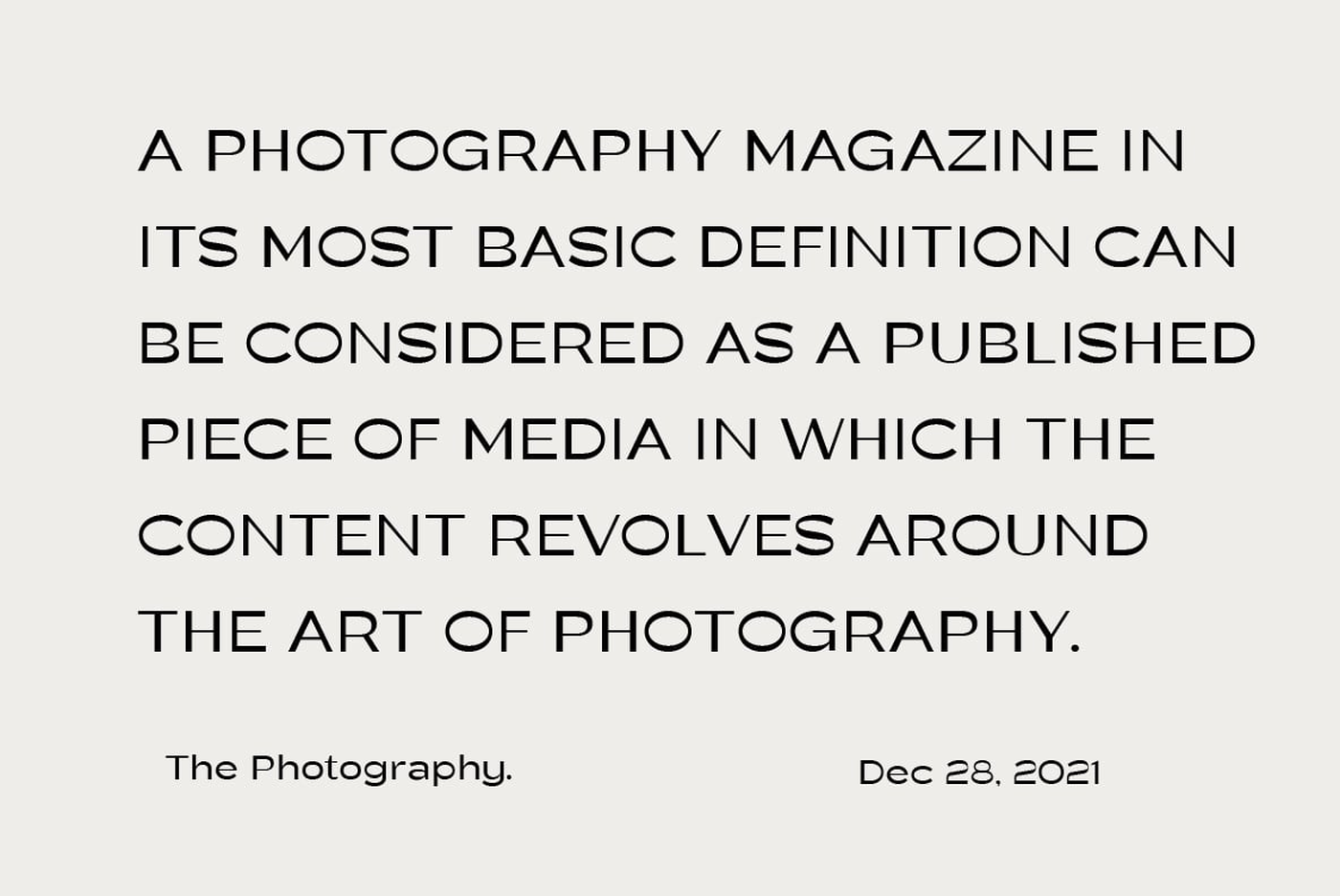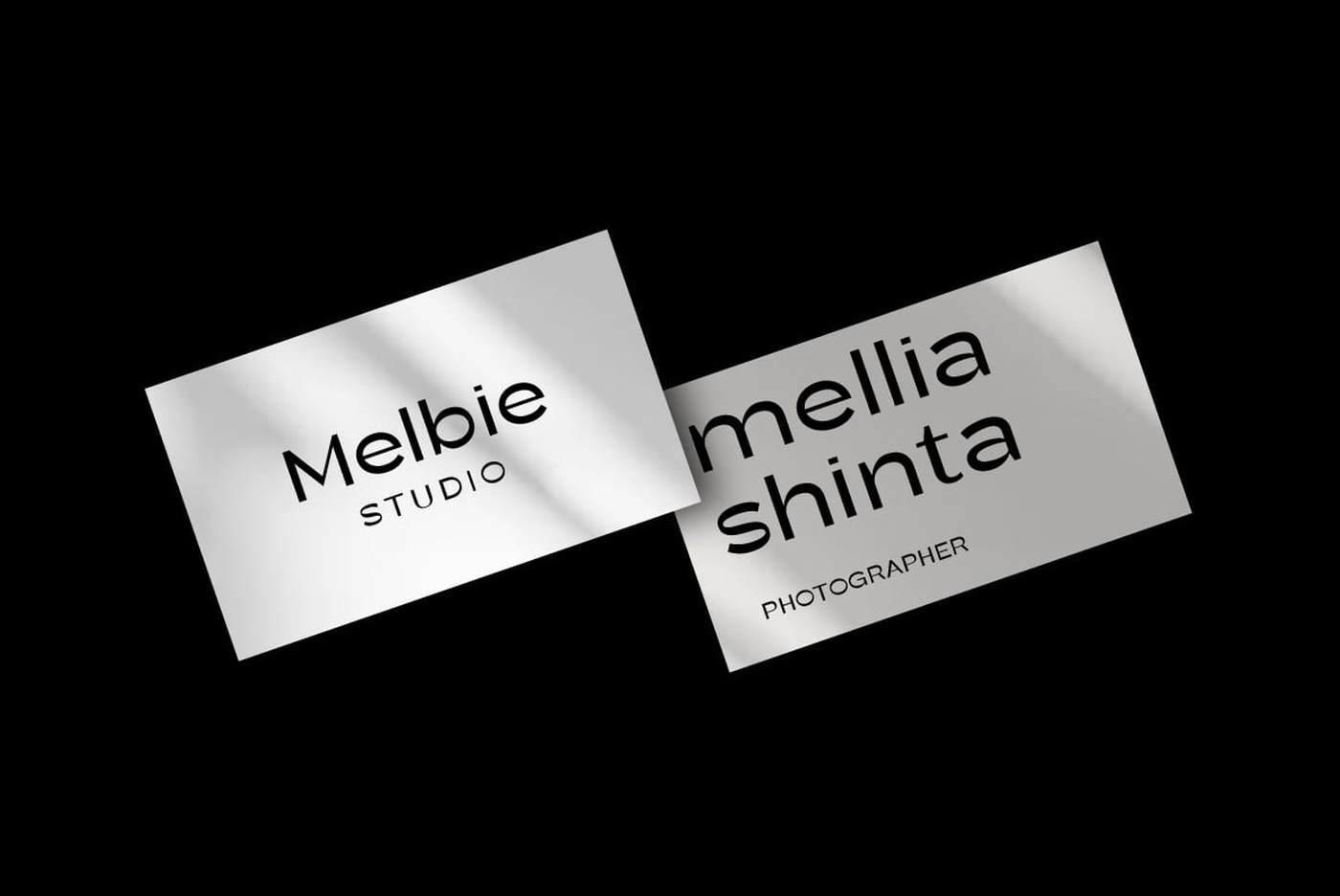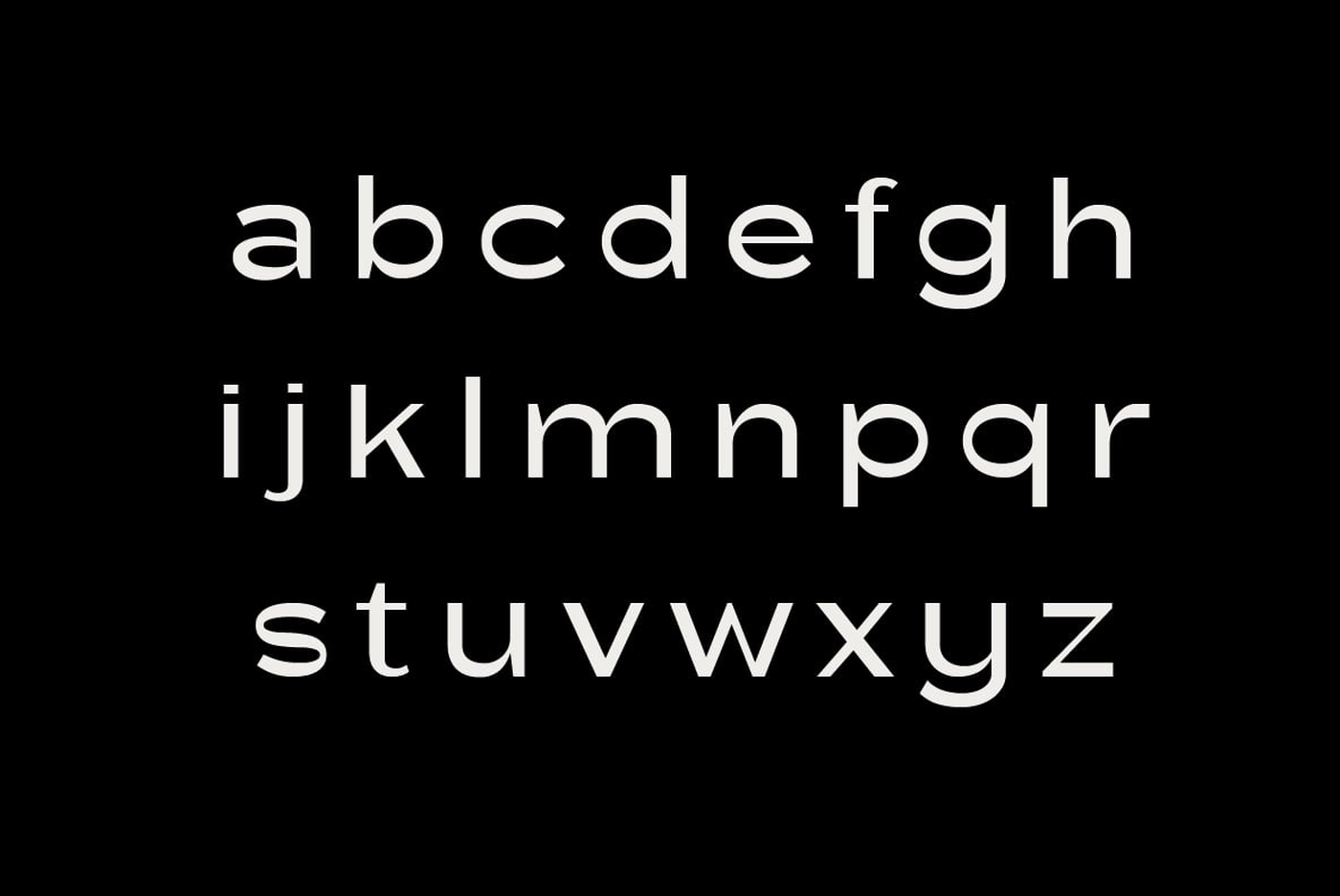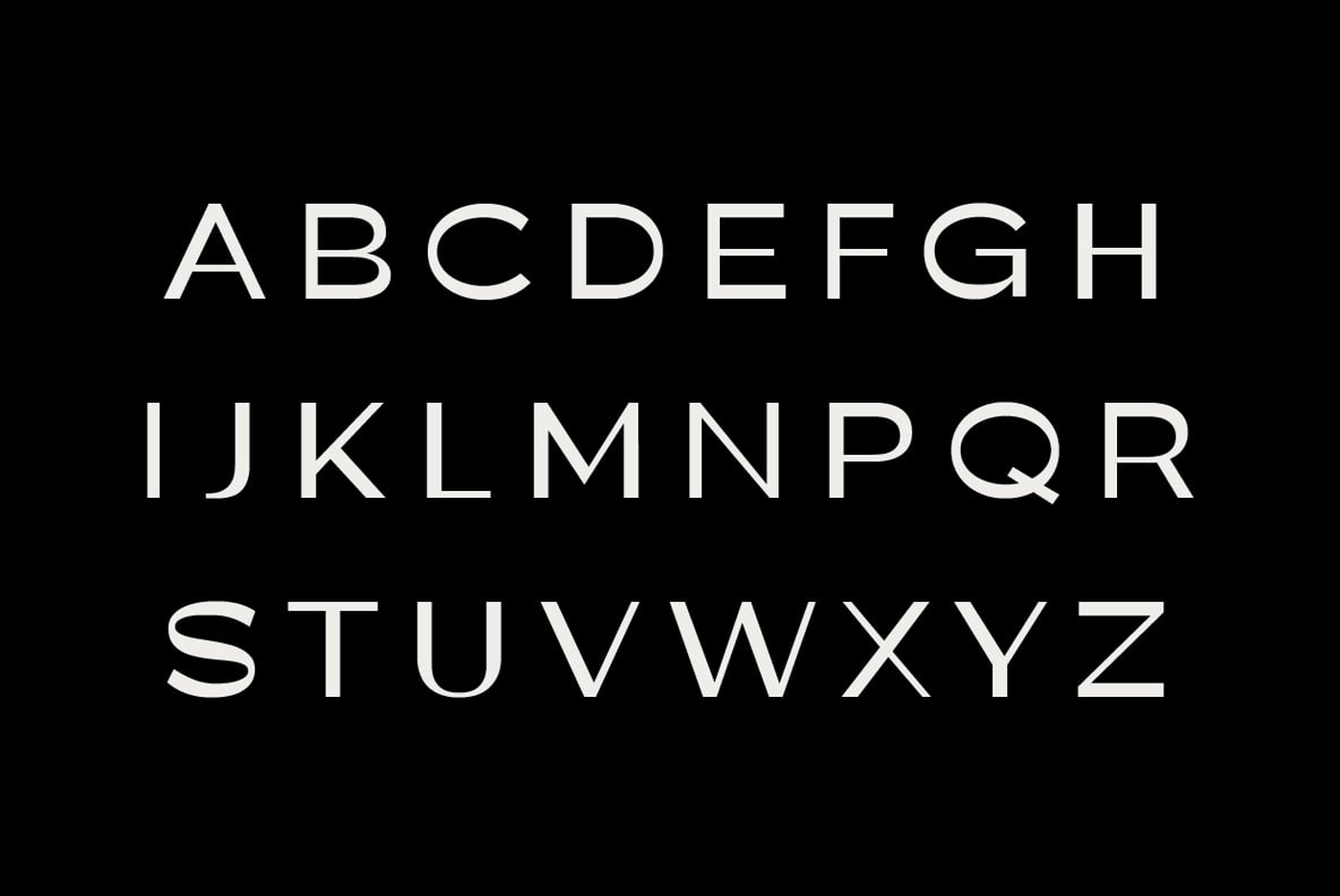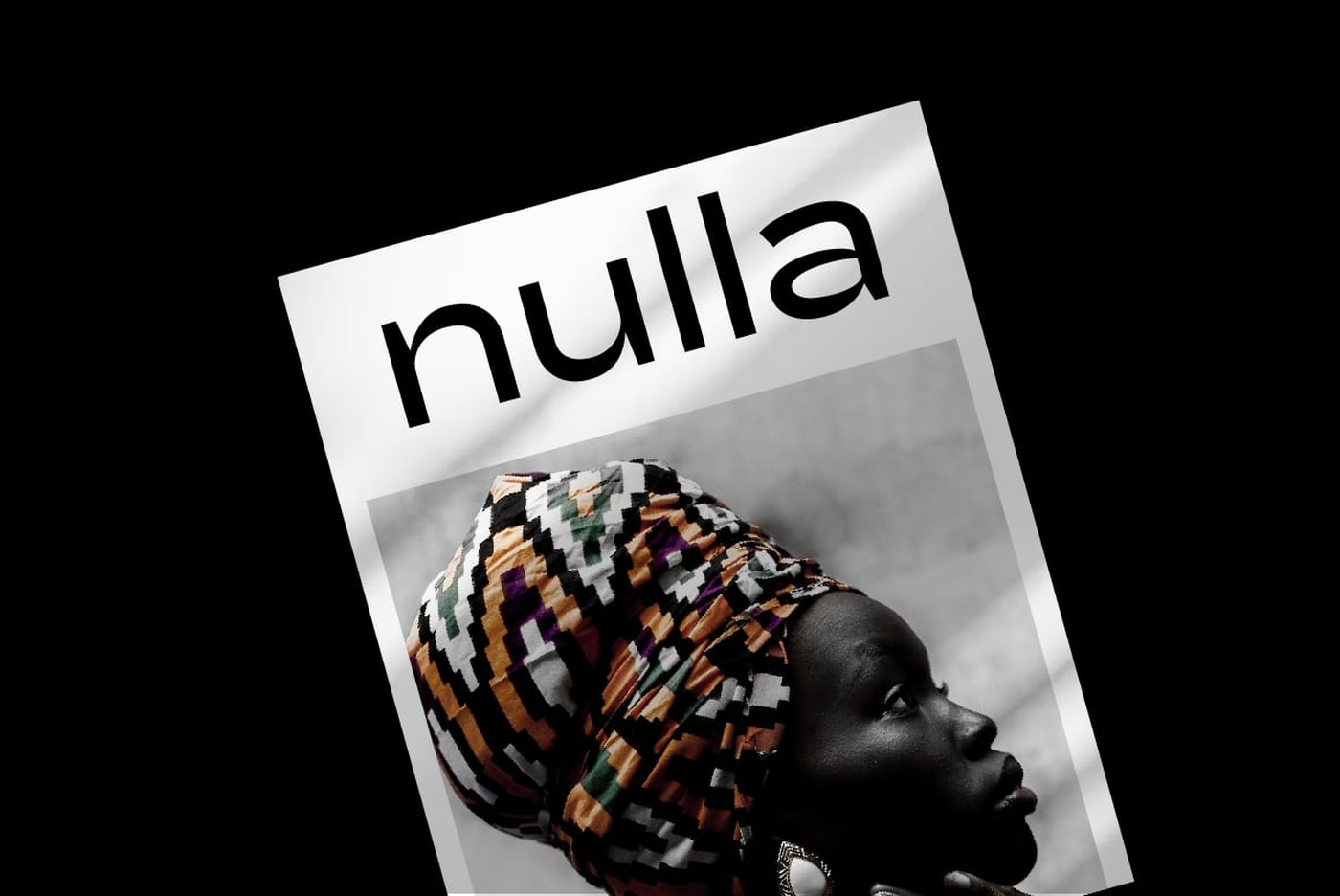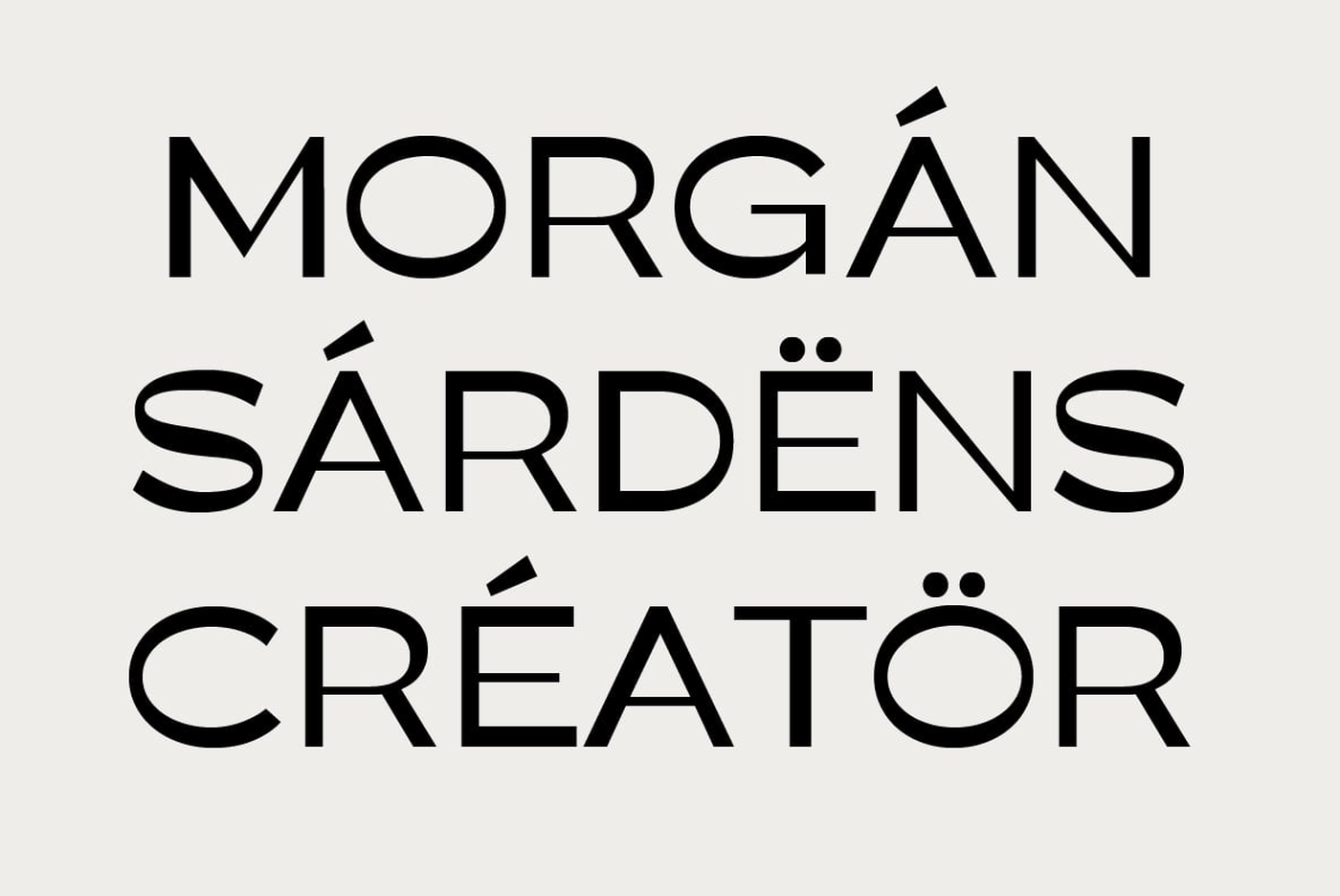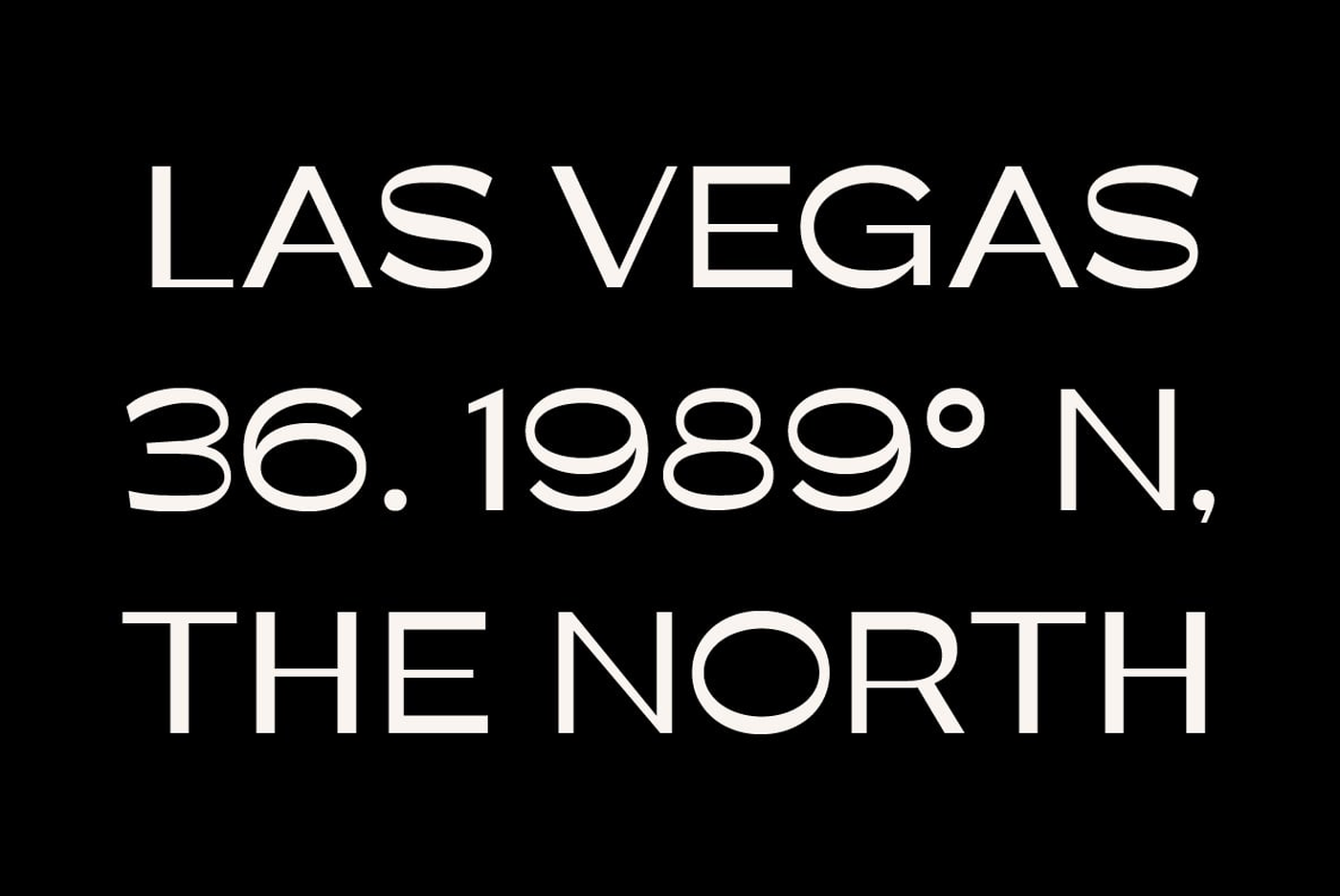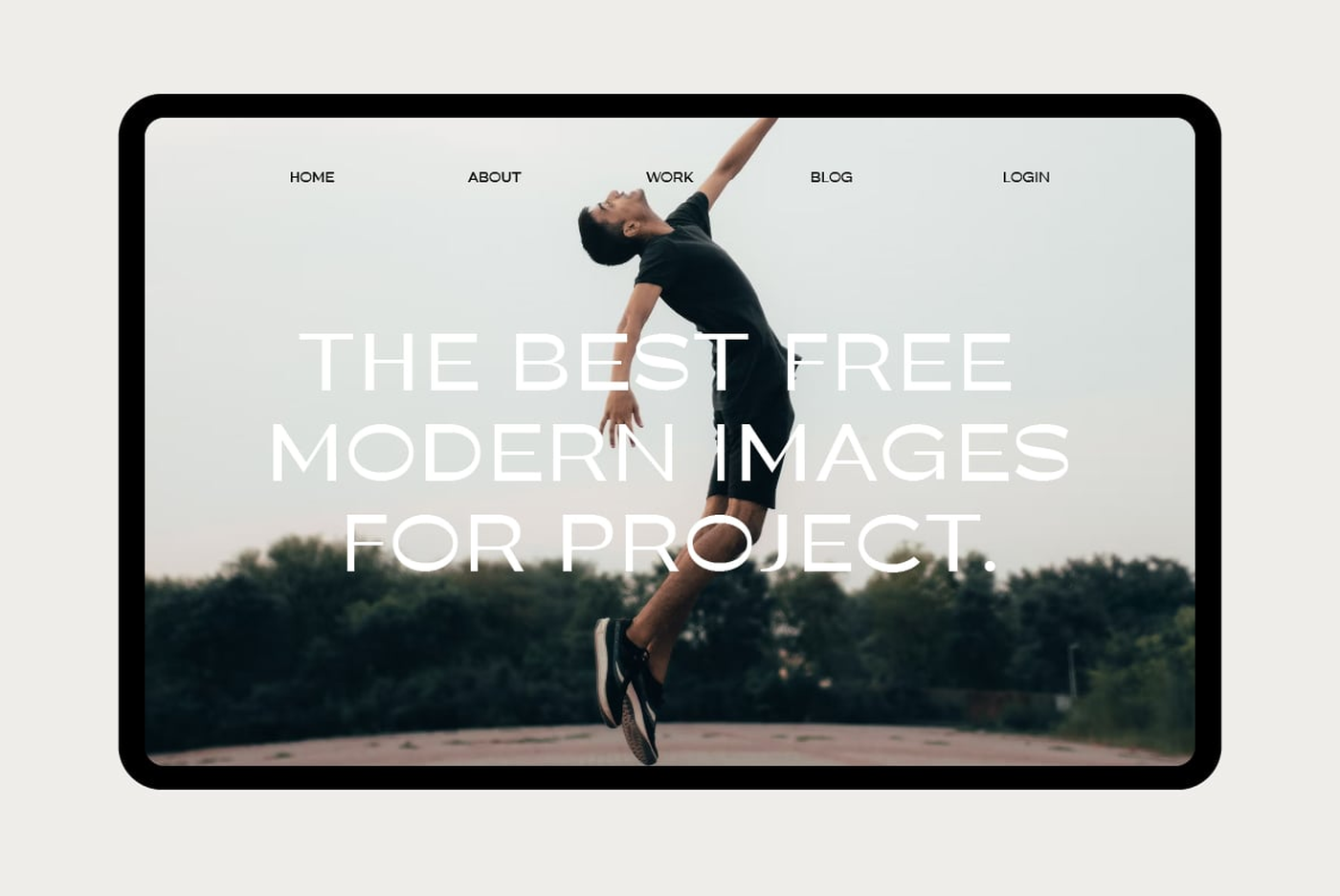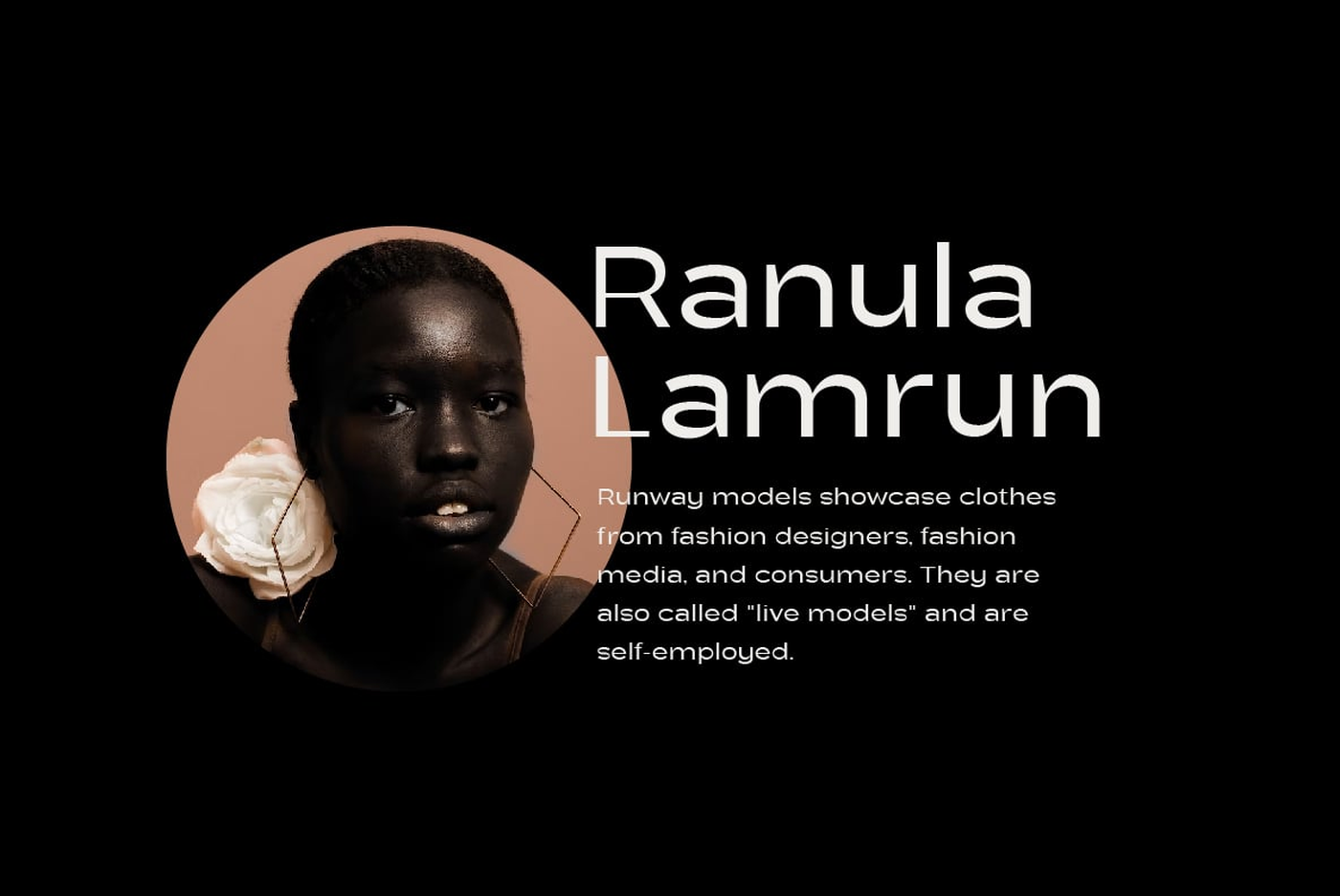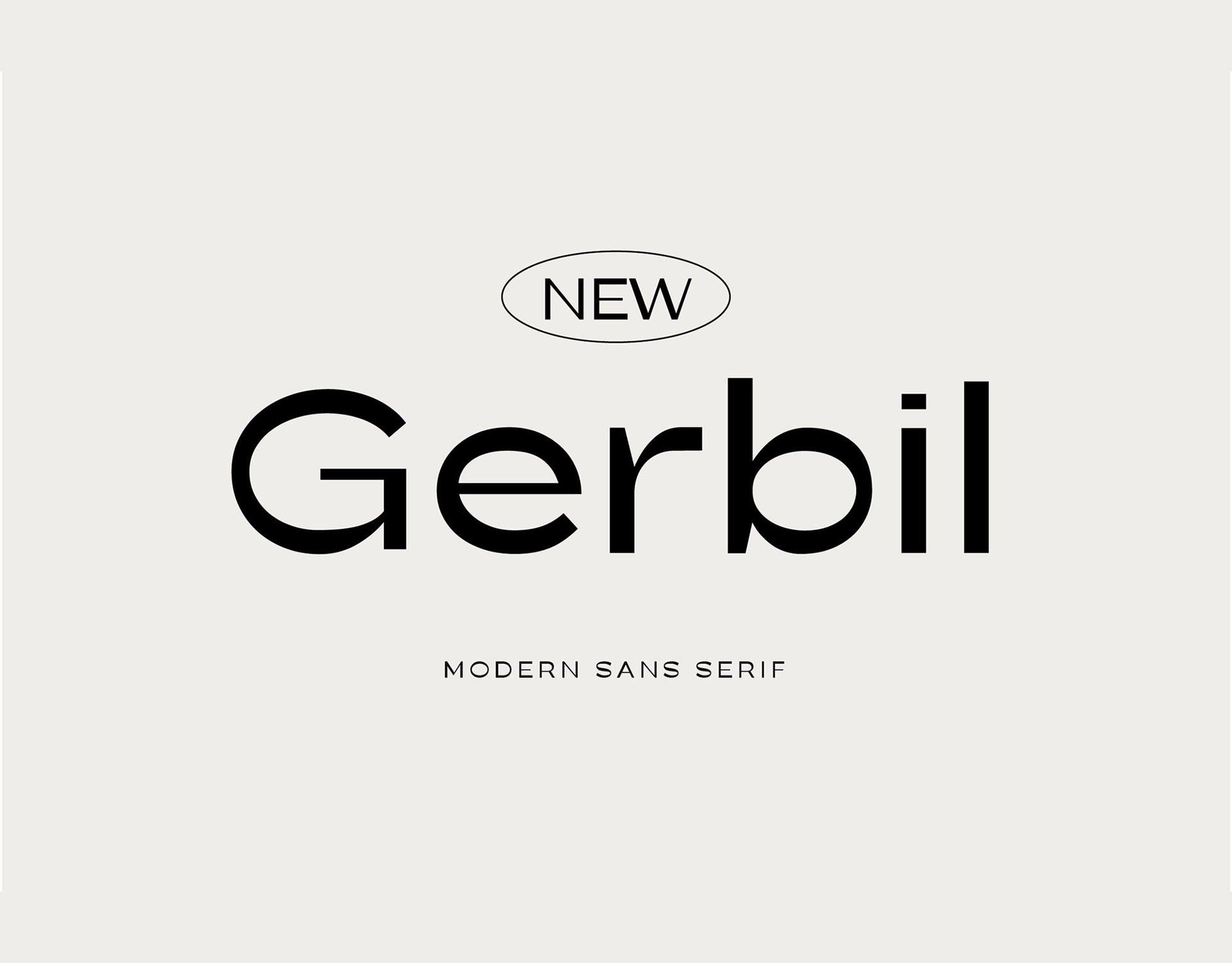
Gerbil - Modern Sans Serif Font
Gerbil has distinctive characteristics, such as bold thin lines and strong bold lines, as well as highly geometric letterforms with sharp corners. The color of this font tends to be monochromatic with white as the base color, making it suitable for use in designs that are modern and stylish. This makes this font easy to apply to various media, be it for poster designs, logos, business cards, banners, and various other design purposes. New Gerbil Sans Serif Modern is a very flexible font that is suitable for a variety of design purposes. With a modern and stylish design, this font can give your design a very luxurious and elegant impression.